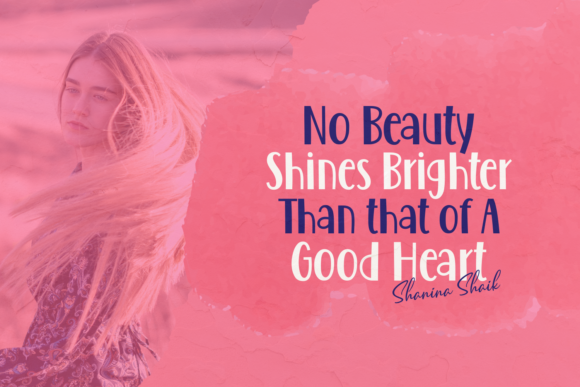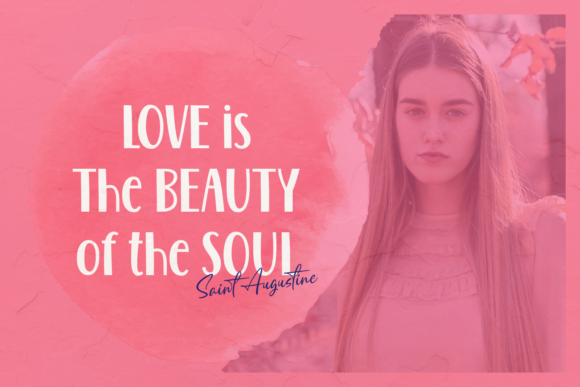
Maybe Yes Font
About Maybe Yes Font
Maybe Yes is a lovely script font with a bold and charming twist. It will turn any design project into a stand out.